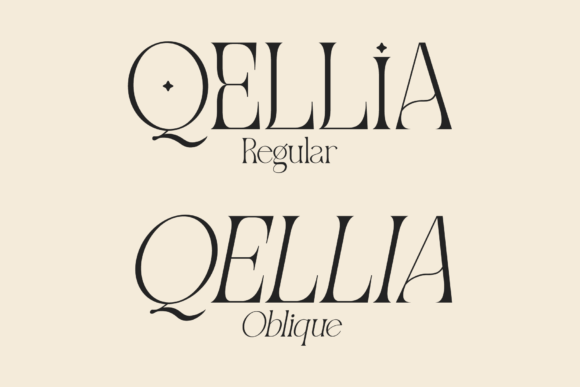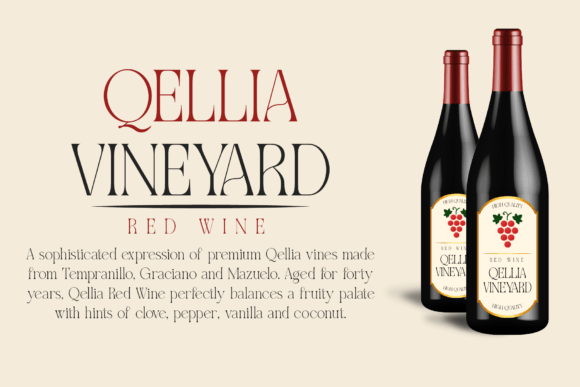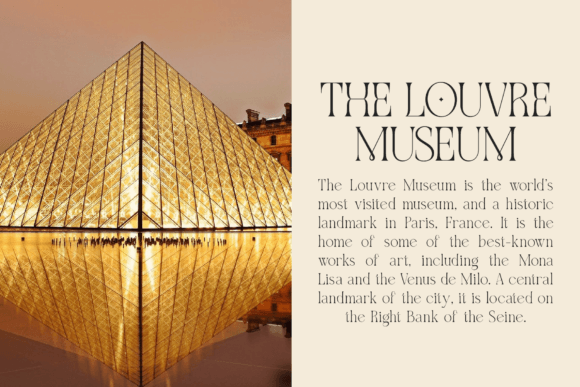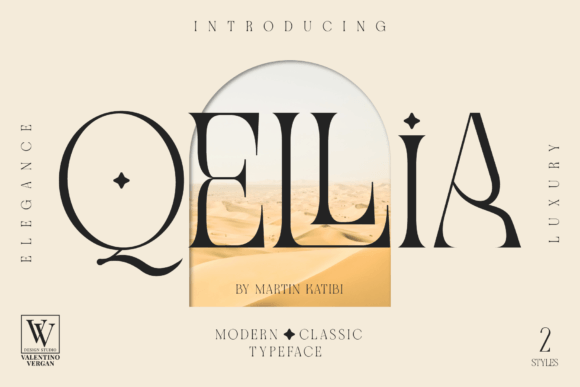
Introduction to Qellia Font
Qellia is a stylish and slim serif font.
It will look stunning on any poster, flyer or print Use this font for your designs and explore its endless possibilities.